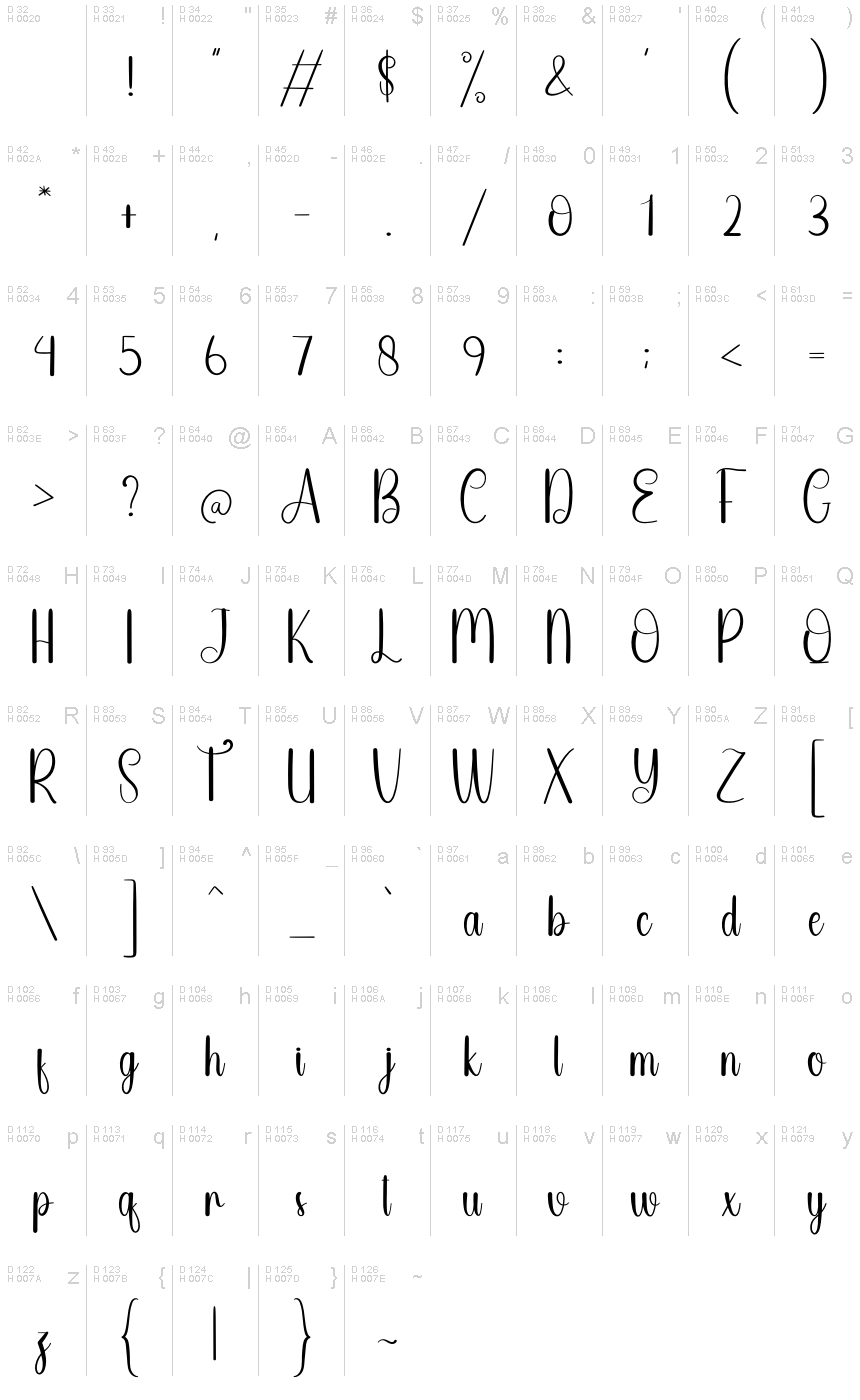
Seafood
Seafood is a captivating handwritten font designed by Andi Moz. This condensed, display-style typeface exudes a sweet, friendly charm. The flowing, organic curves and distinctive letterforms create a playful, whimsical aesthetic that immediately catches the eye. Seafood's natural fluidity and approachable personality make it an excellent choice for adding a personal, artisanal touch to various design projects.
Seafood's versatility shines through its ability to elevate wedding stationery, greeting cards, and other design pieces that require a touch of elegance and personality. The font's condensed width allows it to work seamlessly in confined spaces, while its handwritten style lends a heartfelt, handcrafted feel to any design. Seafood's charming character and versatility make it a fantastic option for designers seeking to infuse their creations with a dose of warmth and playfulness.